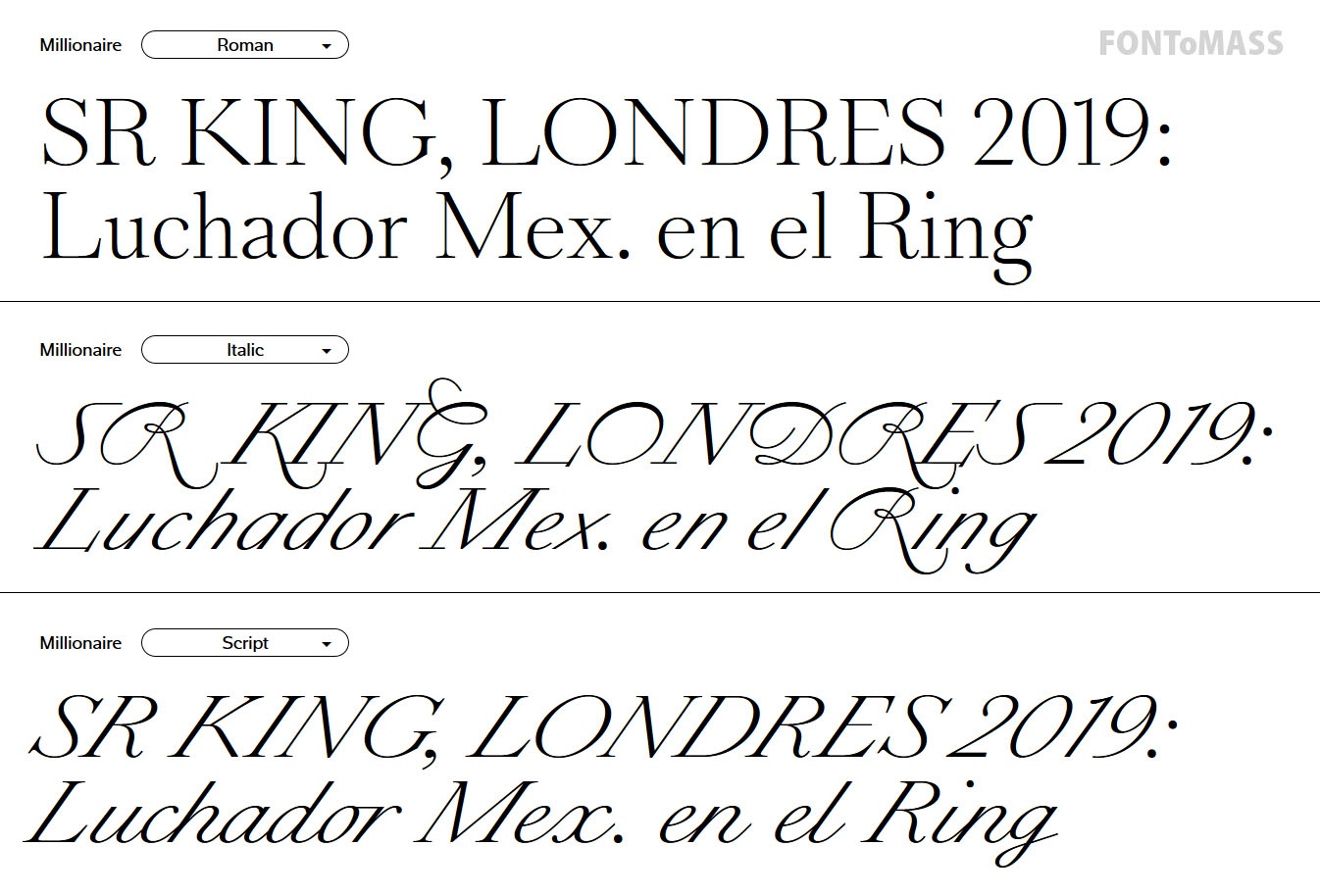
Millionaire Font
This luxurious typeface is perfect for high-end financial services branding, premium investment firm materials, exclusive private banking signage, luxury wealth management presentations, upscale business consulting logos, prestigious award ceremonies, elite membership clubs, and affluent lifestyle marketing campaigns. Millionaire Font delivers uncompromising opulence in applications where financial success and elite status are essential for attracting high-net-worth clients and sophisticated audiences.
What makes Millionaire Font so exciting is its masterful embodiment of wealth and financial sophistication through elegant typography. The font features meticulously crafted letterforms with refined details that suggest prosperity and exclusive quality. Each character has been precisely designed to convey authority and success while maintaining exceptional legibility across premium applications. The typeface's affluent personality creates immediate associations with financial achievement and elite social status, making it perfect for brands that cater to wealthy clientele and need to communicate trustworthiness, exclusivity, and proven financial expertise through their visual identity.
The Millionaire Font includes prestigious style variations: Regular, Bold, Light, and Elegant versions. This wealthy collection provides designers with sophisticated tools to create luxurious layouts and establish premium typographic treatments that capture the essence of financial success. Each style maintains the font's inherent prosperity while offering different levels of refinement for various high-end applications and exclusive design contexts.
This prosperous typeface represents the ultimate choice for designers who understand the critical importance of prestigious typography in attracting and retaining high-value financial clients.